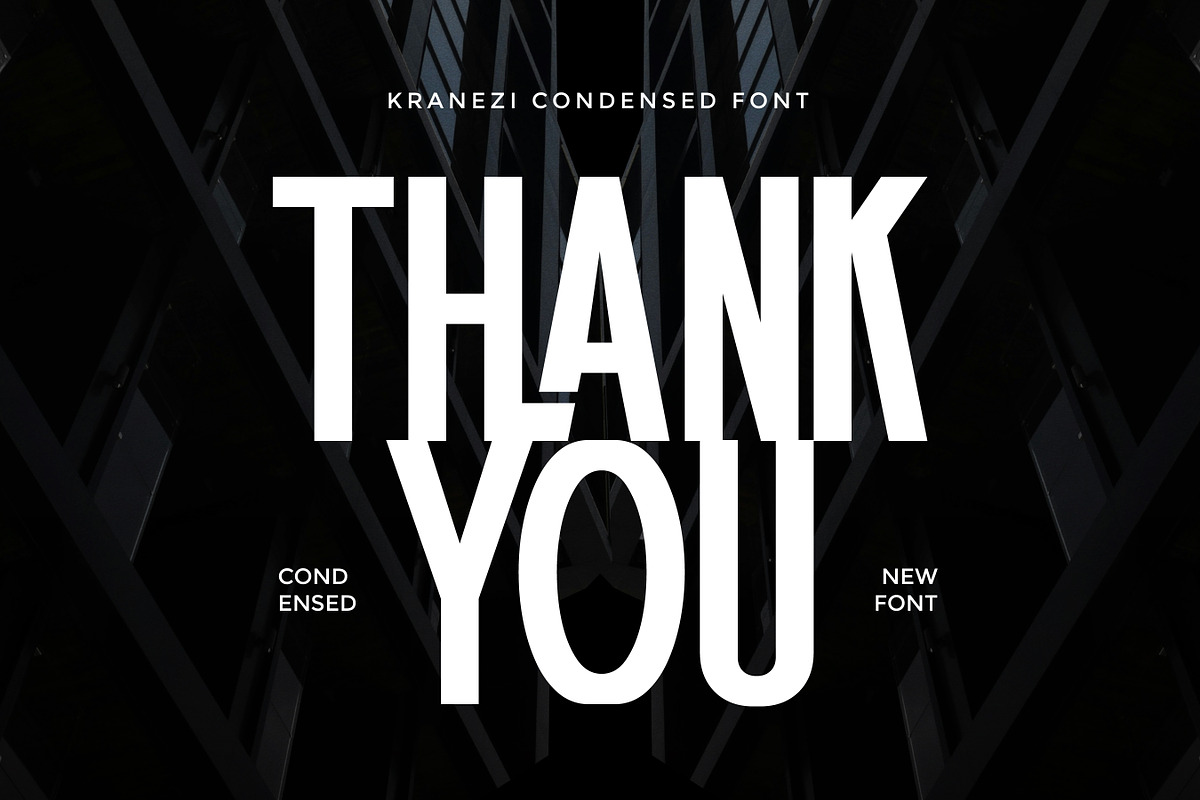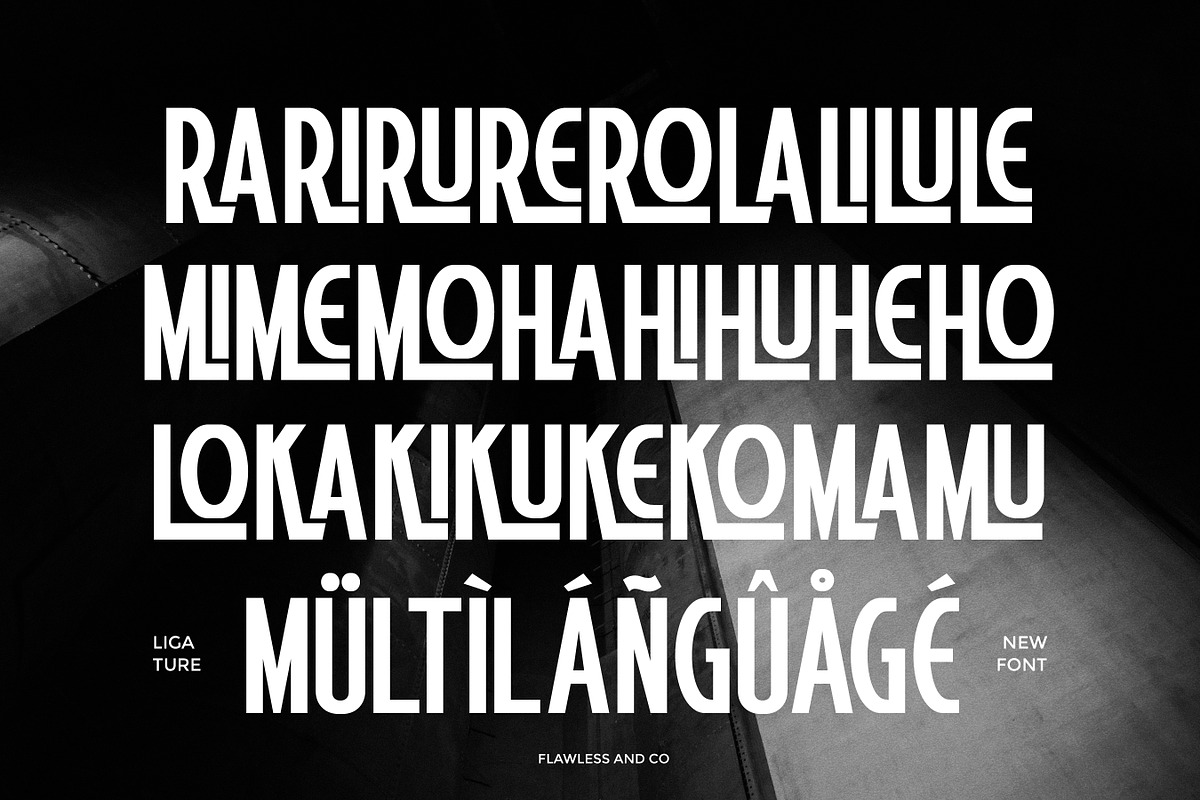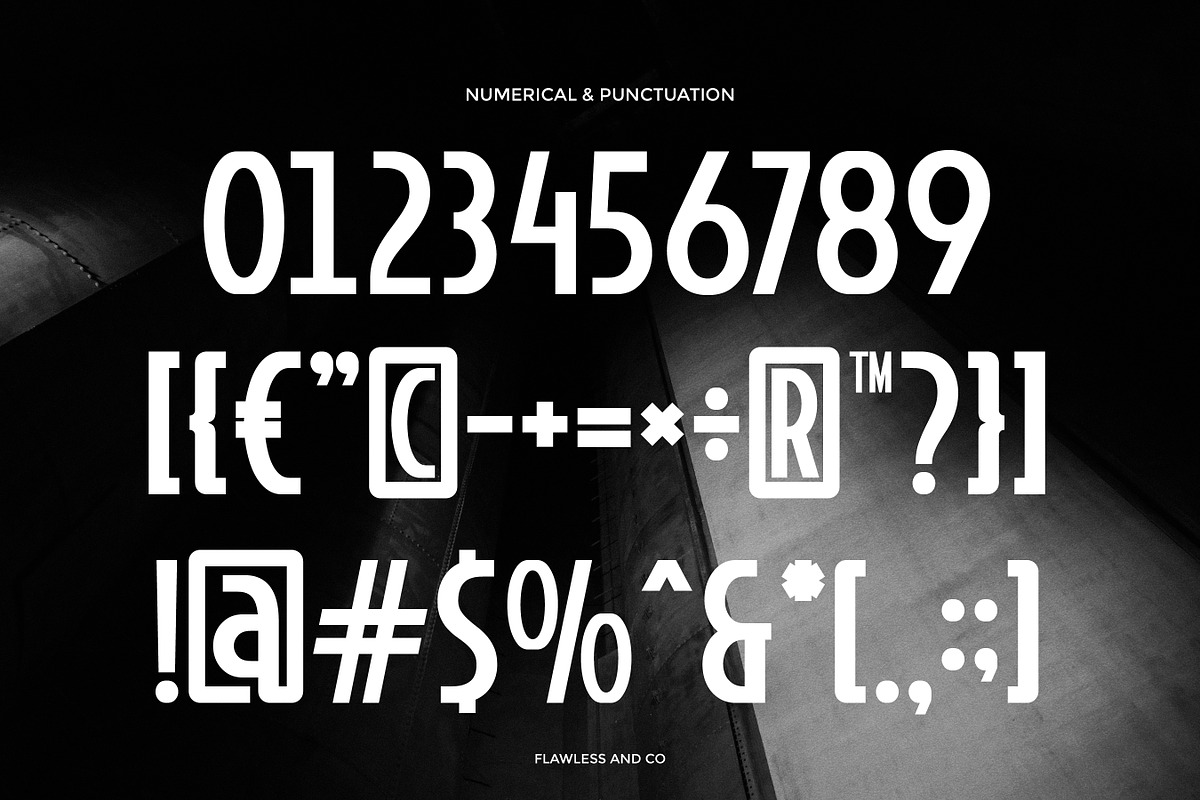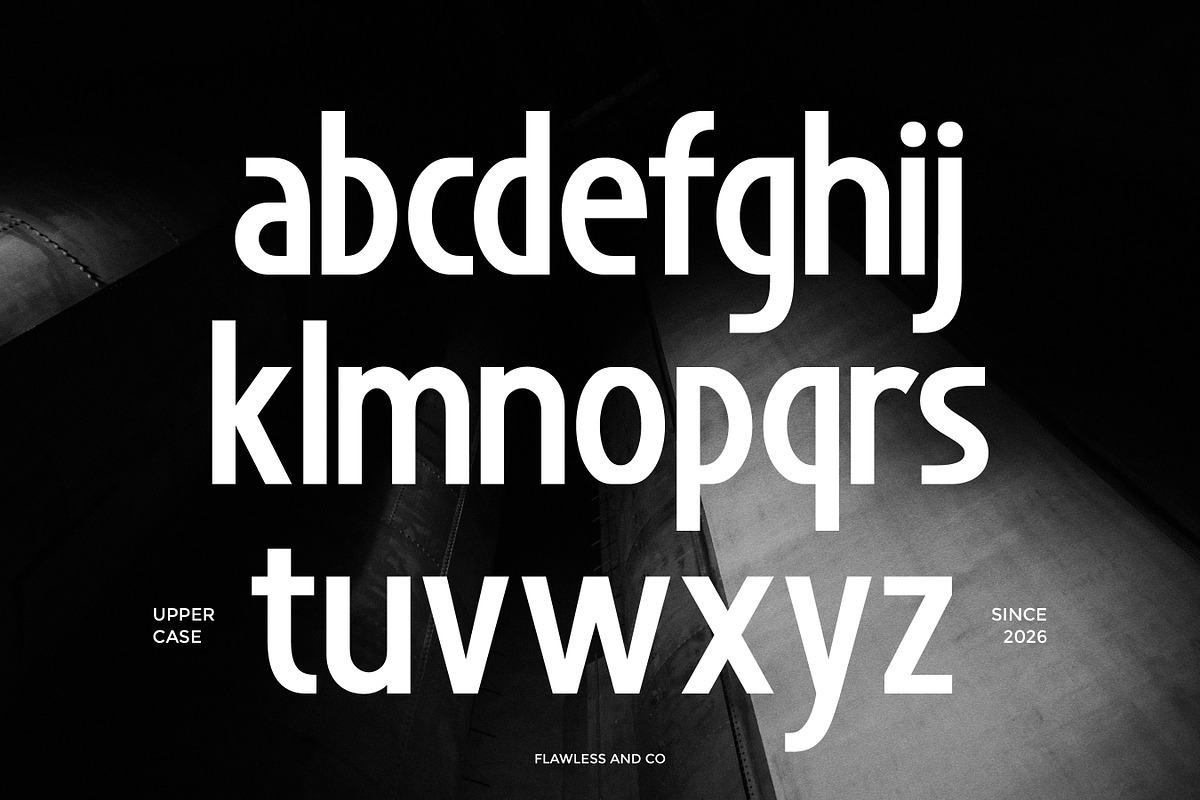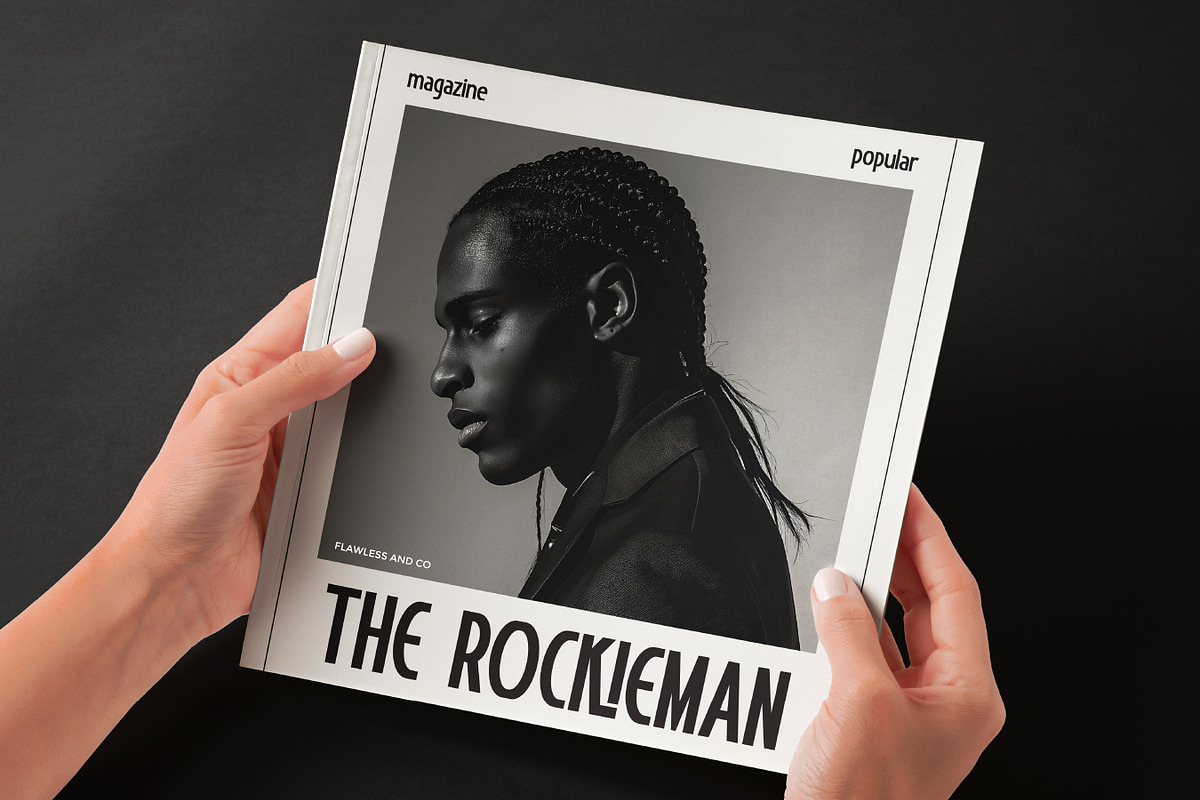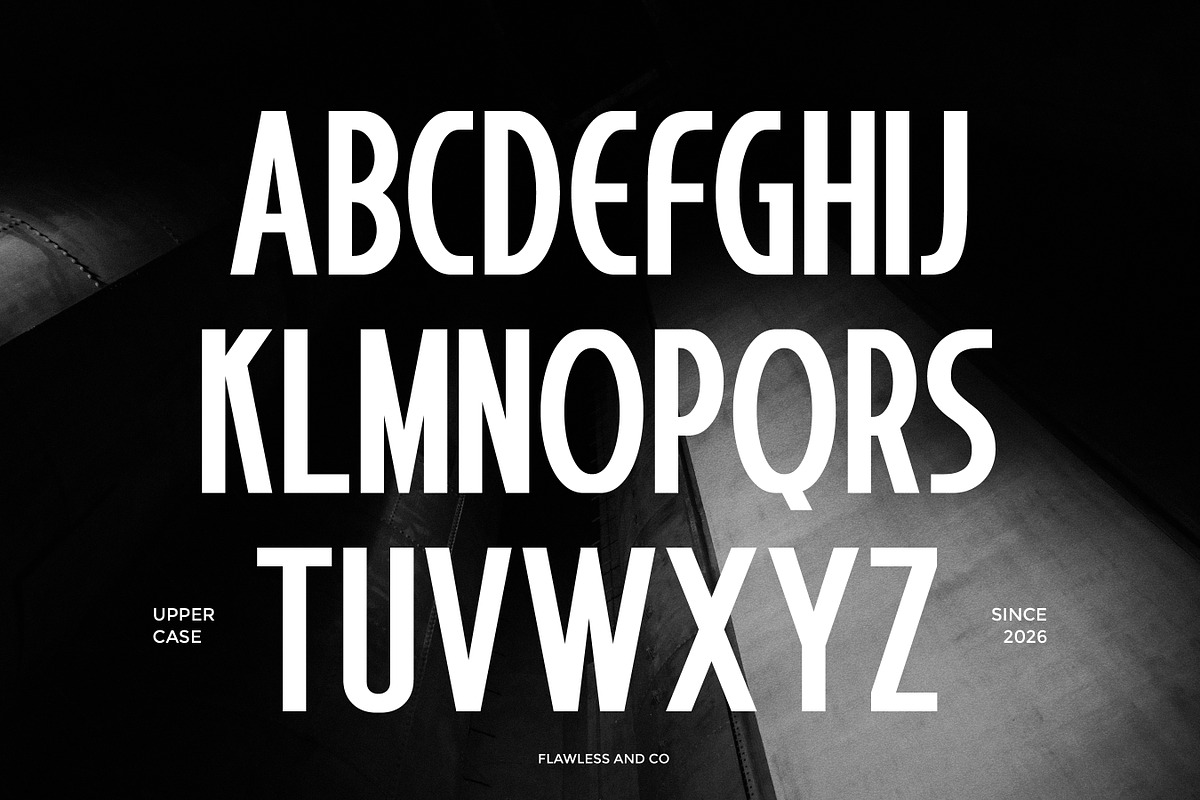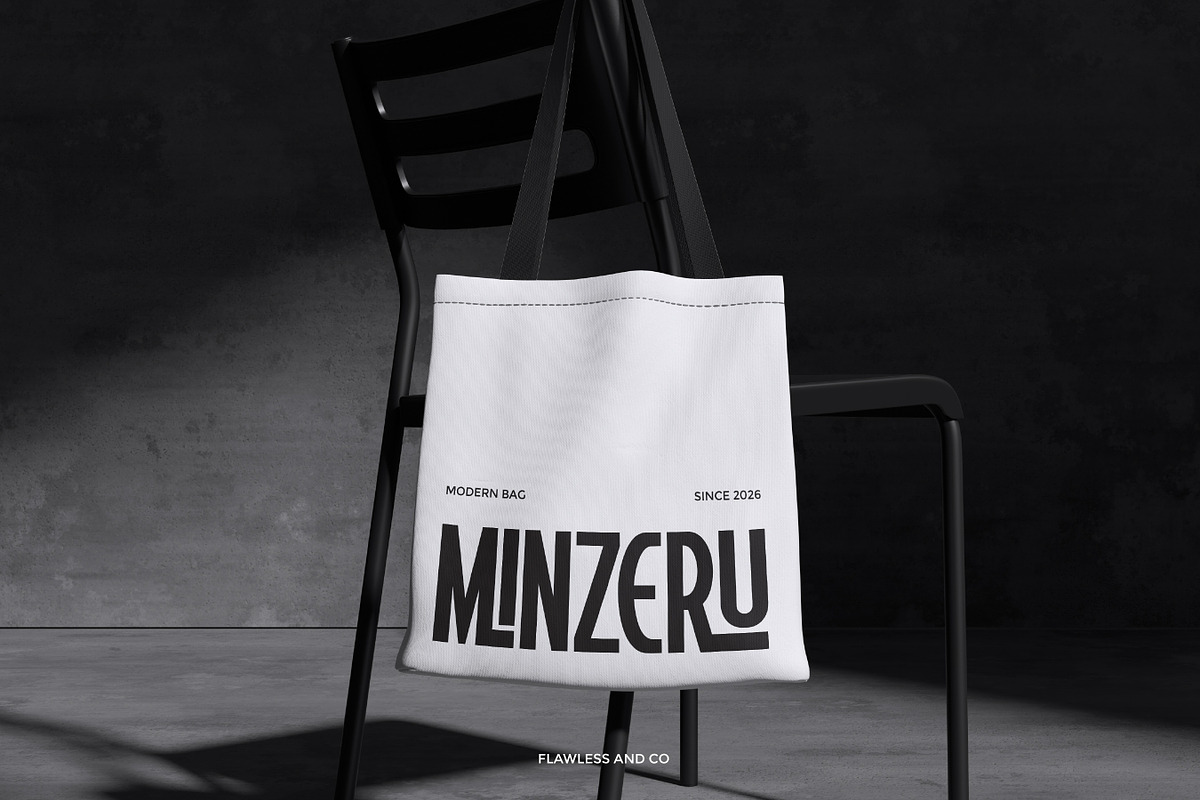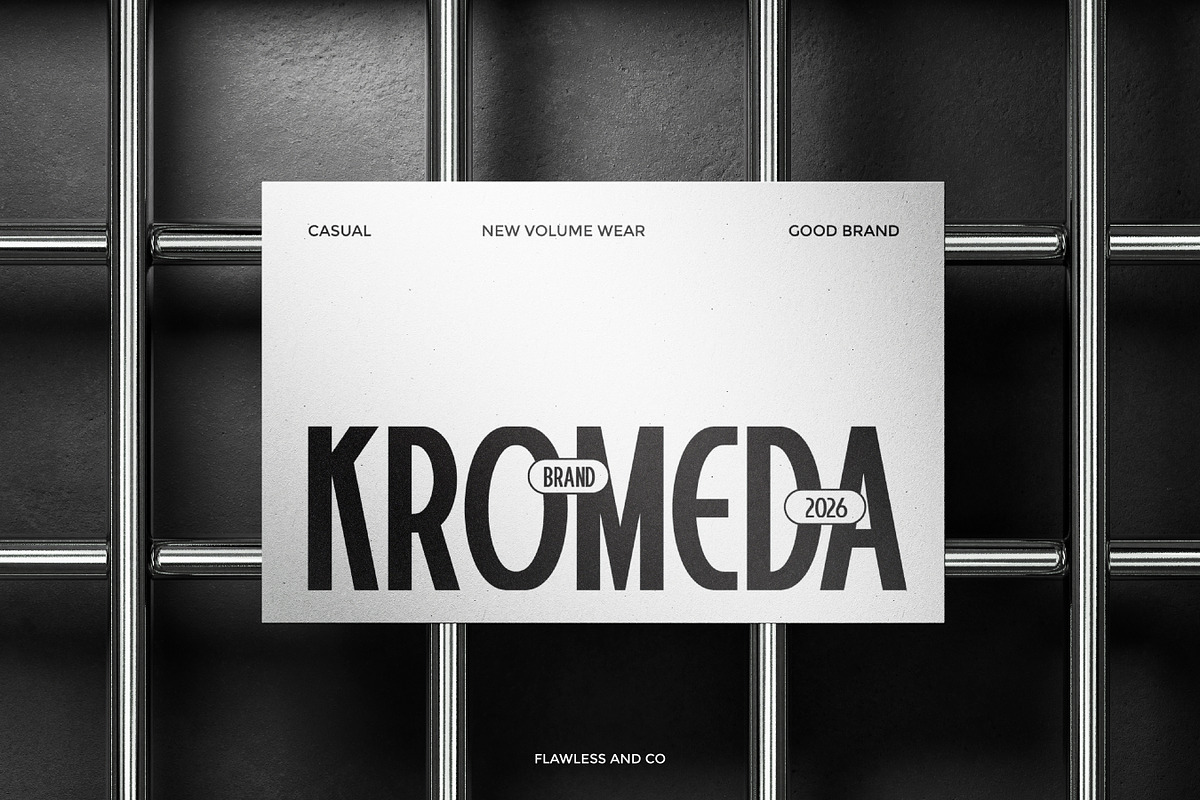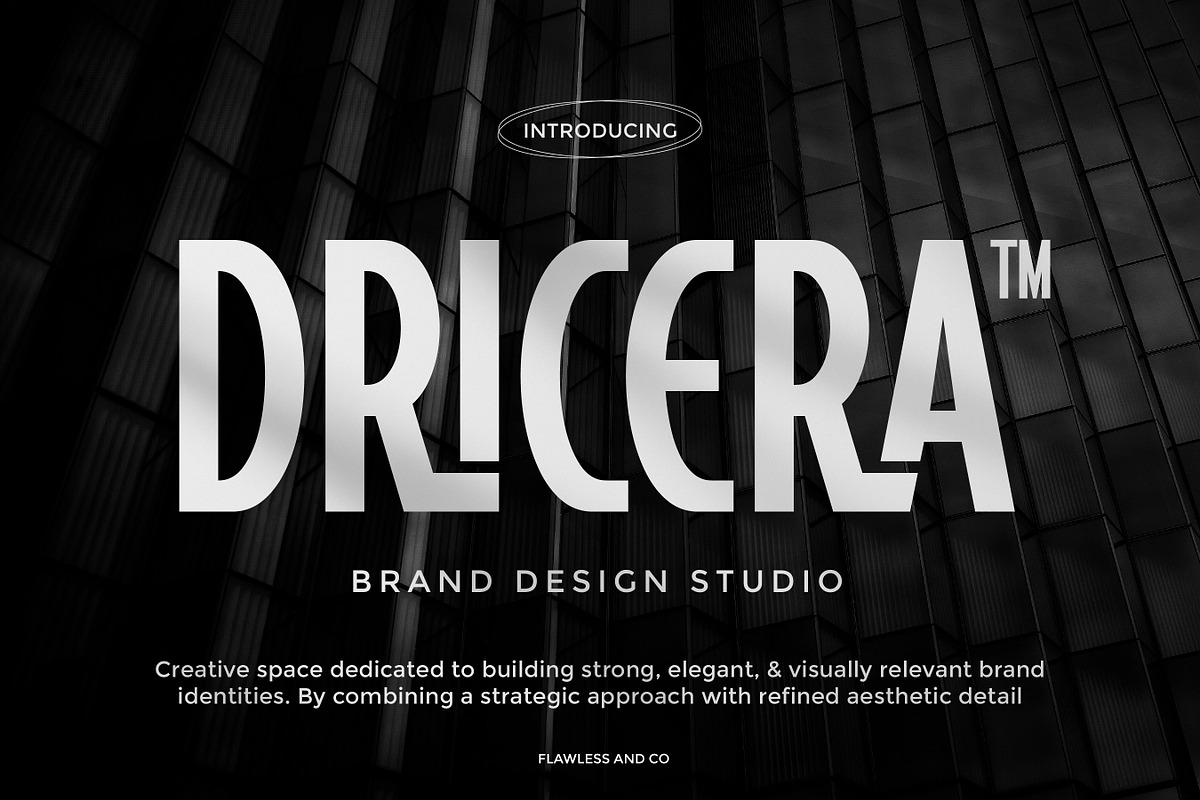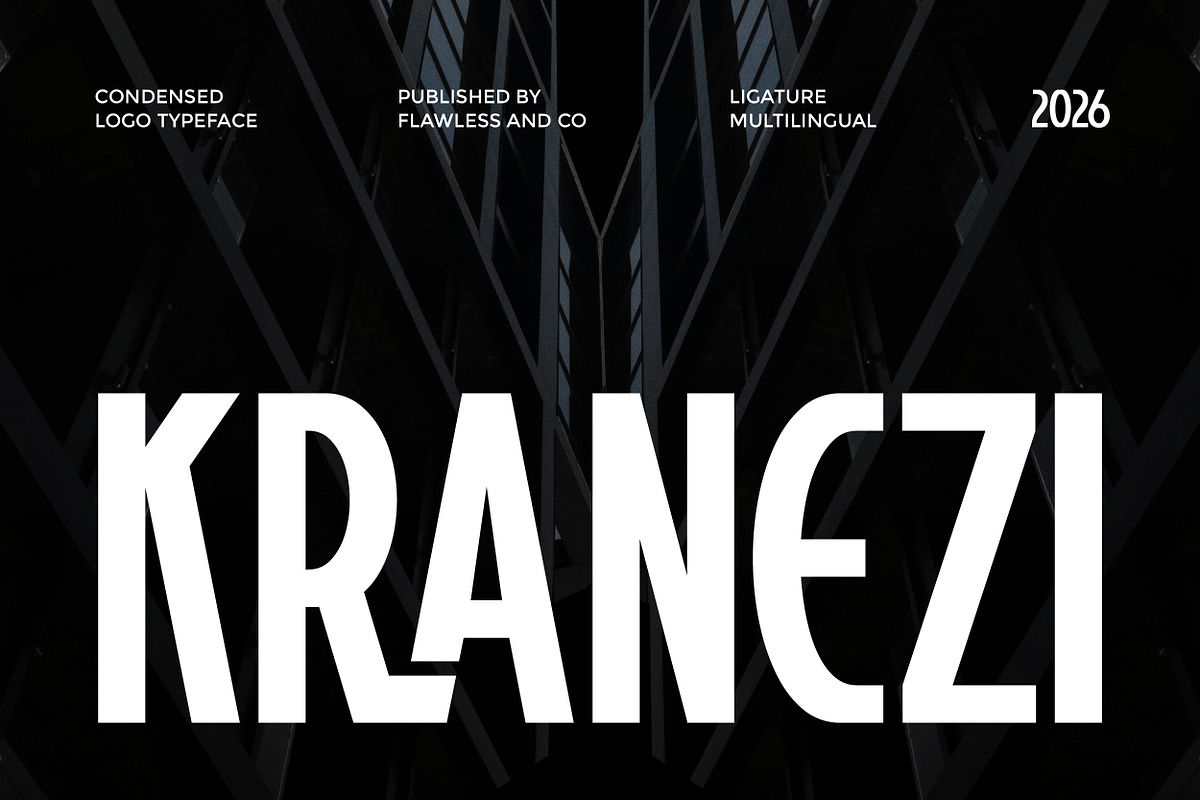
Kranezi - Condensed Sans Serif Font
Kranezi – Condensed Sans Serif Font
Kranezi is a modern condensed sans serif font crafted to deliver a sleek, bold, and contemporary typographic look. With its narrow proportions and clean geometric structure, Kranezi creates a strong visual presence while maintaining excellent readability. Designed with a minimalist approach, this font is perfect for designs that require a compact yet impactful typeface. Its condensed style makes it especially effective for headlines, branding, and layouts where space efficiency and visual clarity are important.
Who Should Use Kranezi?
Kranezi is perfect for designers, creatives, and brands who want a modern condensed sans serif font that offers a clean and stylish typographic solution.
Suitable For:
- Modern logo and branding design
- Posters and promotional materials
- Editorial headlines and magazines
- Advertising and marketing graphics
- Social media content
- Website headers and digital layouts
- Product packaging and labels
- Creative display typography